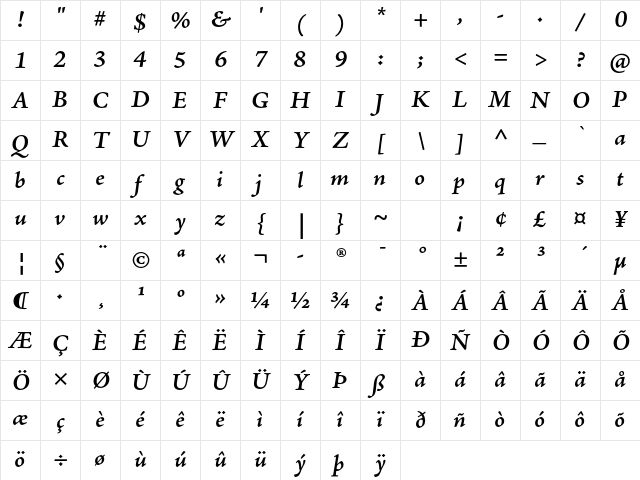
Adobe Jenson Pro Semibold Italic Caption
Style: Semibold Italic Caption
Design Context for Adobe Jenson Pro
Adobe Jenson Pro is a composed and adaptable typeface that performs quietly and consistently across a wide range of design contexts. The slanted form adds forward momentum and visual energy. Its bold stroke weight gives it real presence on the page.
Pro Tip: Use Adobe Jenson Pro for emphasis, pull quotes, and subheadings where its slanted energy can add rhythm to the layout.